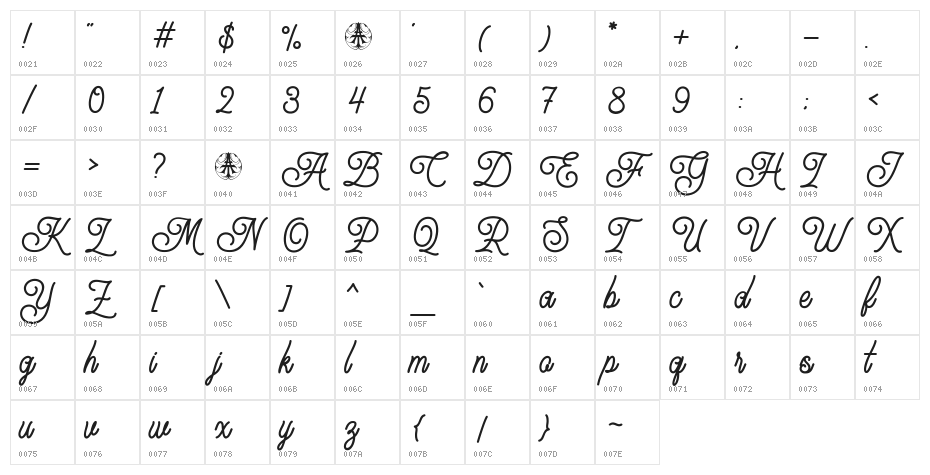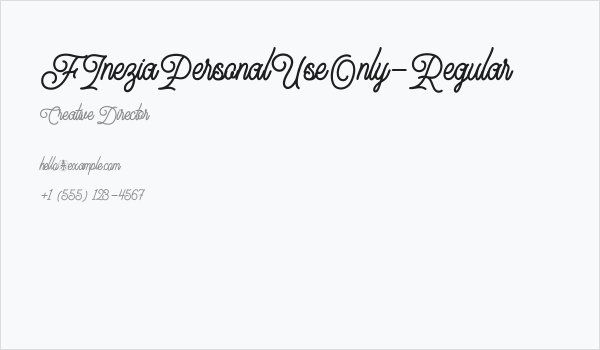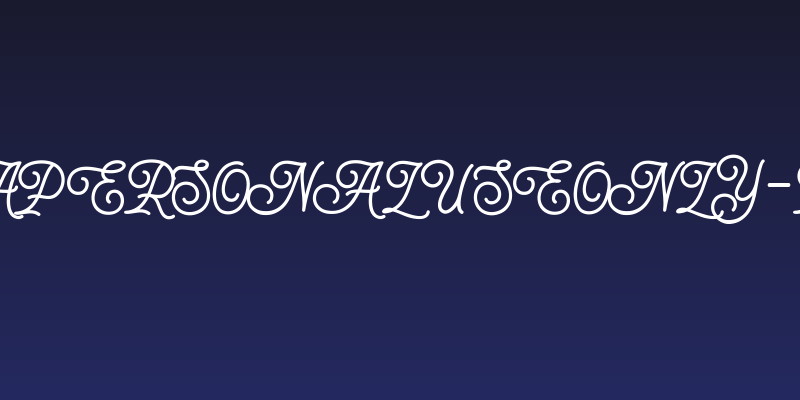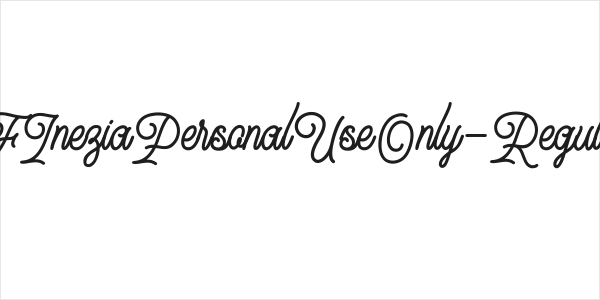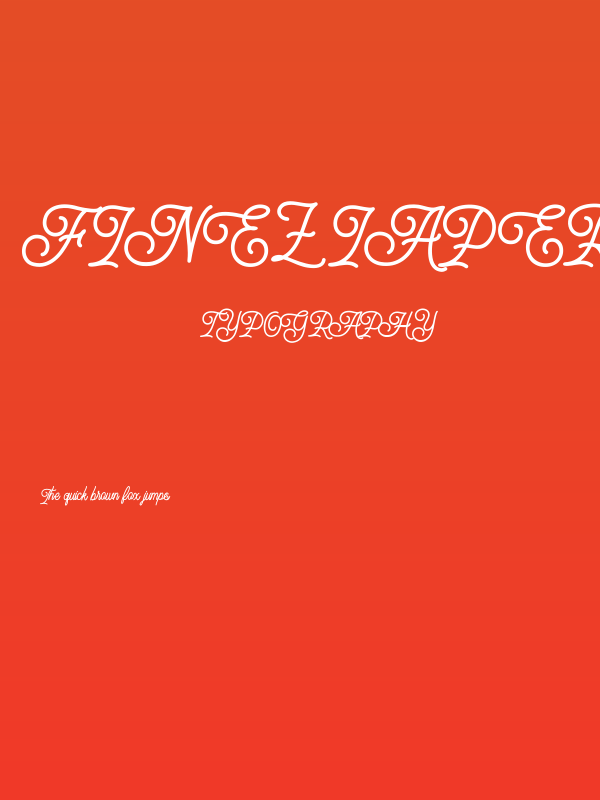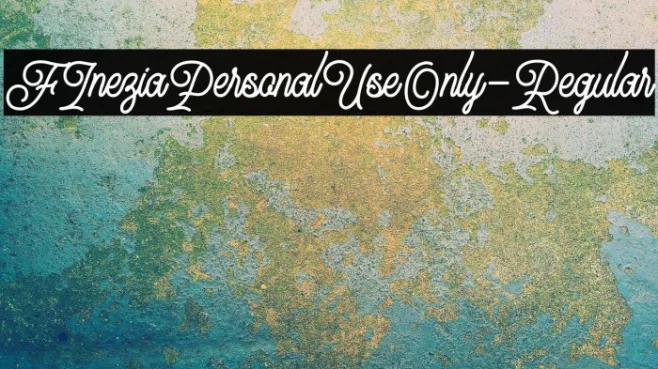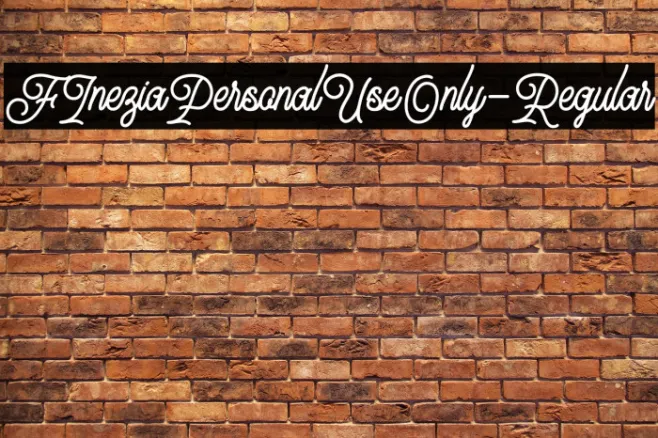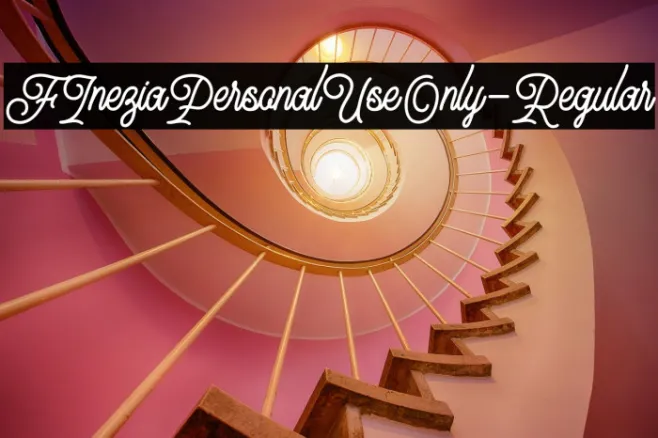
FIneziaPersonalUseOnly-Regular Font
FIneziaPersonalUseOnly-Regular Description
This font features an elegant script style with a flowing, cursive design. The uppercase letters are ornate, with intricate loops and swirls that give a sophisticated and decorative appearance. The lowercase letters maintain a consistent flow, enhancing readability while retaining a stylish flair. The numerals are bold and clear, complementing the overall aesthetic. Special characters are designed with similar attention to detail, ensuring a cohesive look across all glyphs. This font exudes a sense of elegance and refinement, making it suitable for formal and decorative purposes.
| Proposed Projects | Ideal for wedding invitations, greeting cards, branding, and luxury product packaging. |